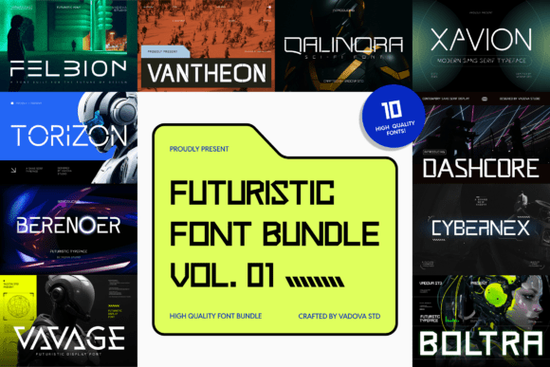
If you're working on a project that needs to feel like it’s from the future think tech startups, sci-fi posters, or gaming interfaces the Futuristic Bundle Vol.01 Font offers a solid set of typefaces built for exactly that. This collection brings together several modern display fonts with clean lines, geometric shapes, and sharp details that echo the look of digital dashboards, cyberpunk cityscapes, and next-gen branding.
Unlike generic sans-serifs, these fonts are designed to stand out in headlines, logos, app screens, or promotional graphics where you want an immediate sense of innovation. Each one balances readability with visual impact, so your message stays clear even when the style leans bold or experimental.
What kinds of projects work best with this bundle?
The fonts in Futuristic Bundle Vol.01 shine when used in contexts that benefit from a sleek, tech-forward aesthetic. Here are a few real-world uses:
- Tech brand identities – Logos, business cards, or website headers for SaaS companies, AI tools, or hardware startups.
- Gaming and entertainment – Title screens, character UIs, or promotional art for indie games or streaming overlays.
- Print-on-demand products – T-shirts, mugs, or posters featuring quotes, slogans, or abstract designs with a digital edge.
- Event visuals – Posters or social assets for hackathons, VR expos, or electronic music festivals.
If you’ve ever browsed fonts like Kruisel or Soda Pop Family, you’ll notice a similar emphasis on modern structure but the Futuristic Bundle pushes further into speculative design territory without sacrificing legibility.
How does it compare to other modern sans-serifs?
Many contemporary sans-serif fonts prioritize minimalism and neutrality (like Bedbag), which works well for body text or understated branding. The fonts in this bundle, however, are display-focused they’re meant to grab attention, not disappear into the background.
You’ll find subtle nods to retro-futurism and interface typography, but without the clutter or gimmicks that can date a design quickly. Instead, they rely on consistent stroke weights, open counters, and precise angles to create a sense of precision and forward motion.
Can hobbyists and small businesses actually use these effectively?
Absolutely. You don’t need to be a professional motion designer to make good use of these fonts. Even simple applications like pairing one of these typefaces with a neutral sans-serif for contrast can give your Etsy shop banner, YouTube thumbnail, or Shopify product page a distinctive look.
For example, using a bold futuristic font just for your product name while keeping descriptions in something clean like the companion sans styles (if included) or another readable face creates instant hierarchy and style without overwhelming the viewer.
And because the bundle includes multiple weights or variants (depending on the specific fonts included), you get flexibility for different sizes and contexts whether it’s a tiny app icon label or a large event backdrop.
Tips for getting the most out of the bundle
- Use sparingly – These are display fonts. Stick to headlines, logos, or short phrases. Avoid body text.
- Pair with simplicity – Combine with a plain, highly legible sans-serif for balance.
- Test at scale – Some intricate details may blur at small sizes. Always preview how it looks on mobile or printed materials.
- Consider color and contrast – Neon blues, deep purples, or stark white-on-black often enhance the futuristic vibe.
Whether you’re designing a pitch deck for a new app or creating merch for a synthwave podcast, this bundle gives you typographic tools that feel intentional and contemporary not just trendy.